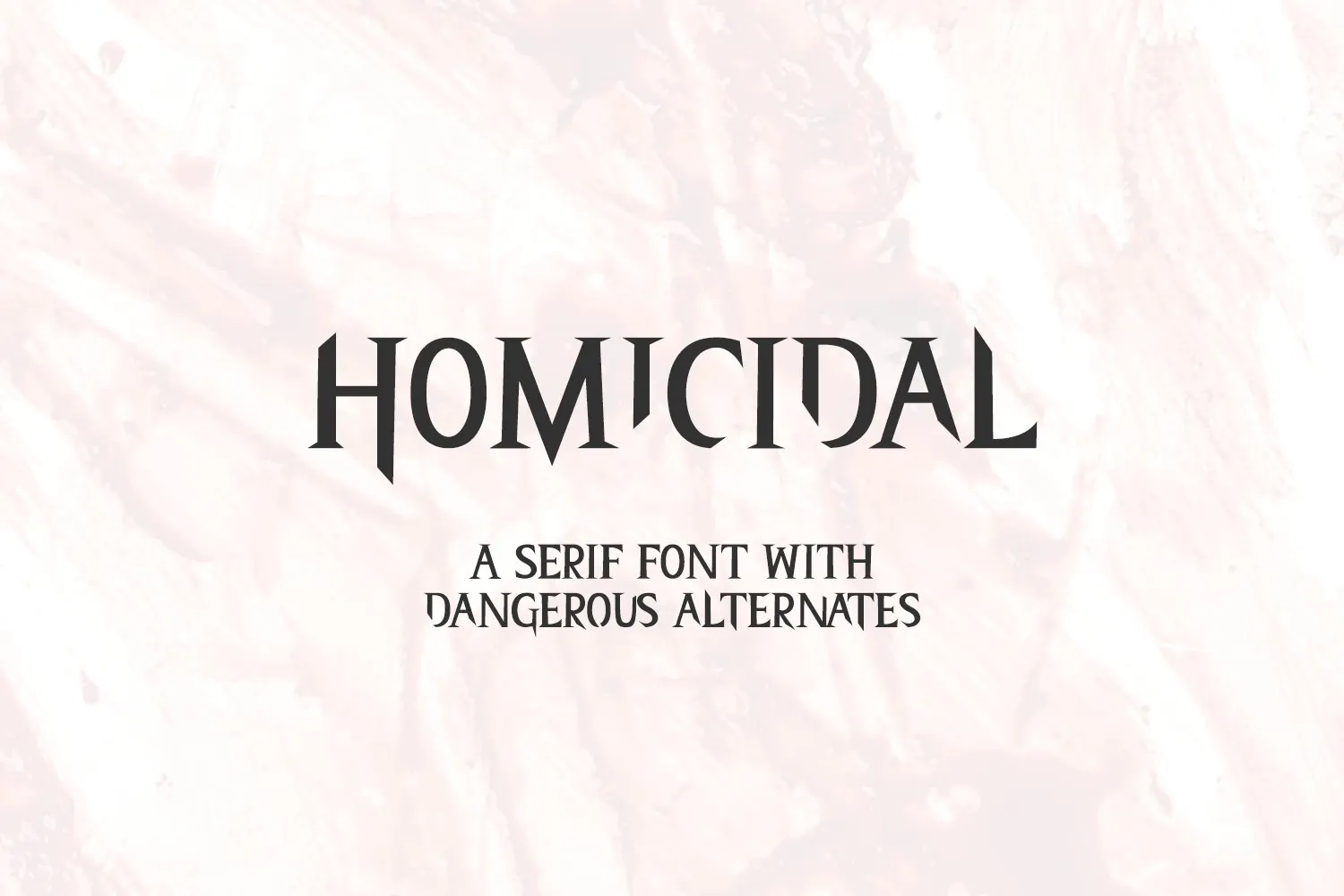
Homicidal Serif Font
Homicidal Serif is an all-caps font - the characters included in the lowercase slots feature a sharp, choppy, stabby version of each letterform. Go all caps, go all lowercase, or used mixed case to choose your level of sharpness. Homicidal is sinister and very much horror-inspired. Use for graphics, shirts, mugs, product packaging, print design, vinyl cutting, and more. (Also, this font is great for anything related to true crime, forensics, case files, crime scenes, and more.)
Homicidal includes:
- full upper + lowercase characters (stabby versions programmed into lowercase slots)